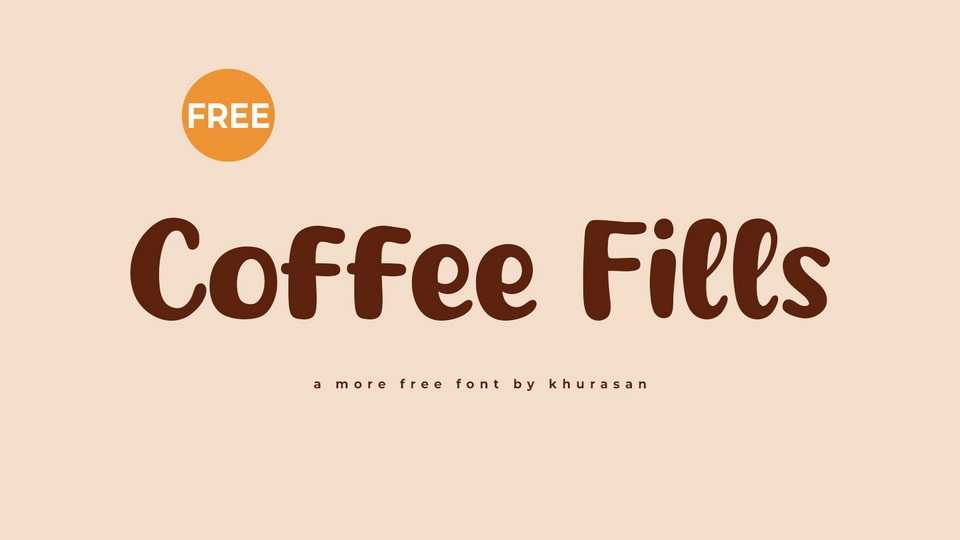
Download Coffee Fills font, a simple, smooth, and inviting handwritten typeface that exudes warmth and approachability. It features clean, flowing lines and well-balanced letterforms that mimic the natural handwriting.